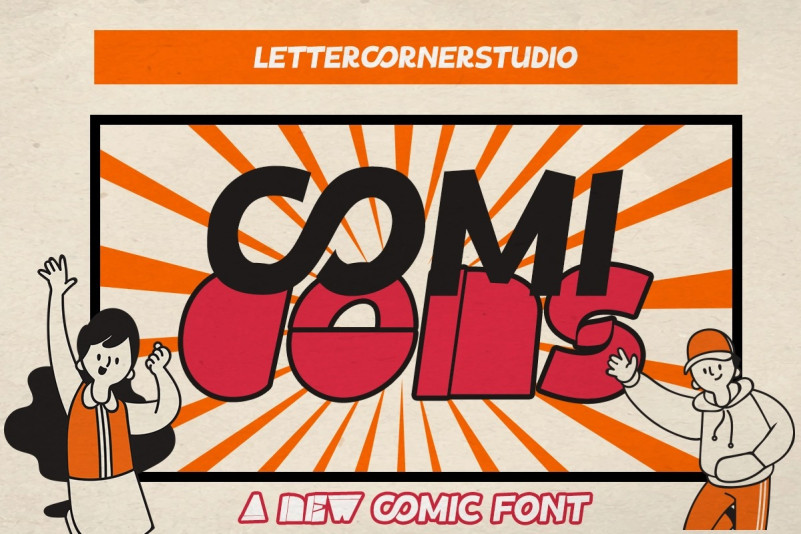
Comicons Font
Comicons Display Font, It would be a perfect choice to design posters, Comic, Cartoon, affiches, logos, t-shirt and magazine prints, eye-pleasing typographic designs and more.